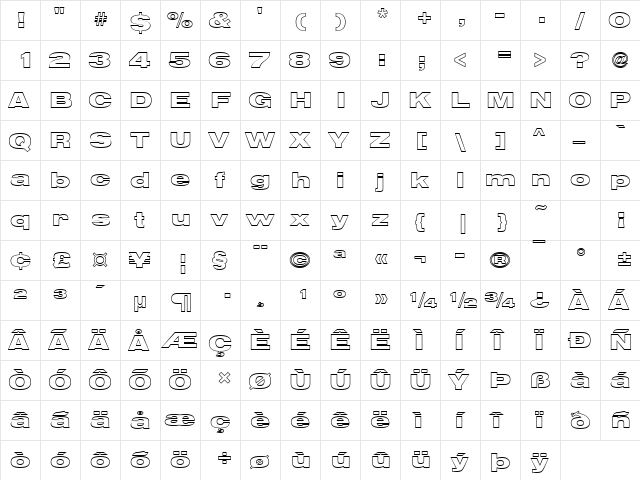
NimbusSanOutDBlaExt Regular
Design Context for NimbusSanOutDBlaExt Typeface
NimbusSanOutDBlaExt offers clean, dependable letterforms without strong stylistic allegiance, making it a practical choice for designers who need flexibility.